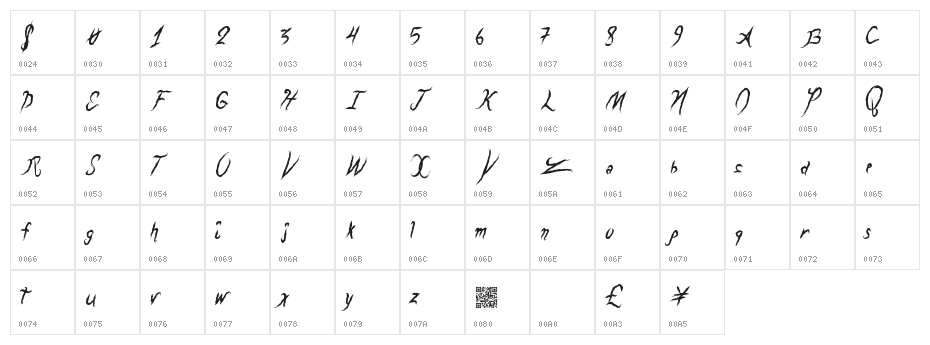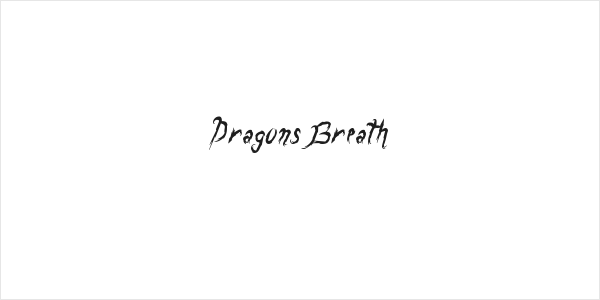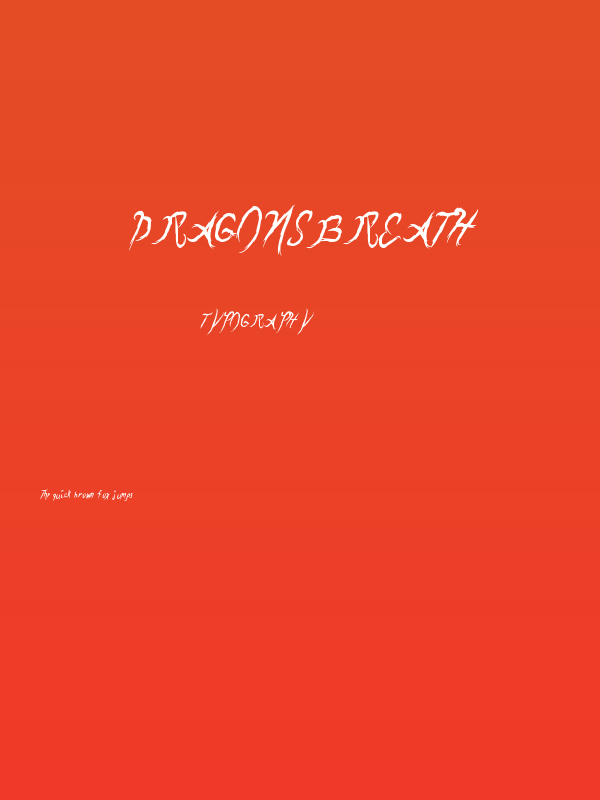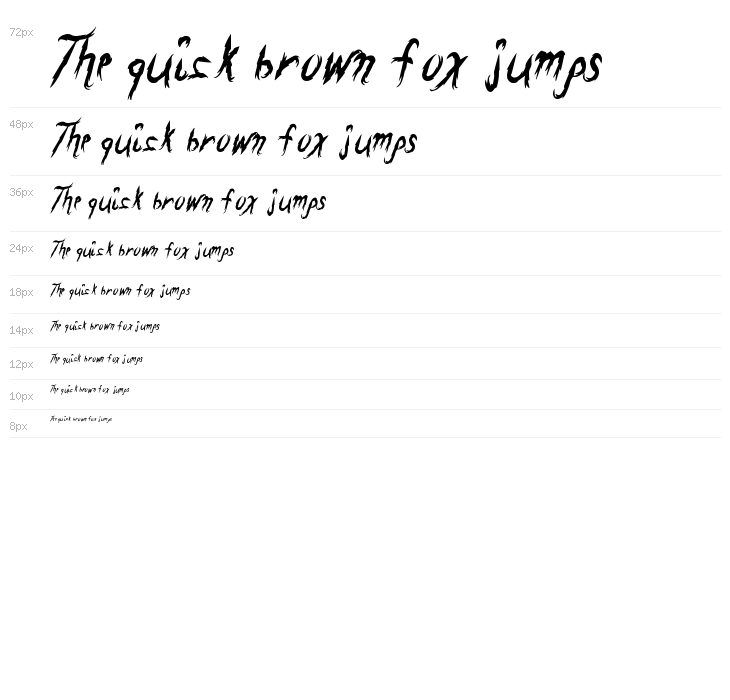
DragonsBreath Font
DragonsBreath Description
This font exudes a fierce and dynamic energy, with strokes that resemble flames or dragon scales. Each character is crafted with sharp, jagged edges, giving it a wild and untamed appearance. The uppercase letters are bold and commanding, while the lowercase letters maintain a consistent style, adding a touch of elegance to the overall design. The numbers and special characters are equally expressive, ensuring a cohesive look across all text. This font is perfect for projects that require a dramatic and impactful visual presence.
| Proposed Projects | Ideal for fantasy-themed designs, video game titles, movie posters, or any project requiring a bold and dramatic typeface. |